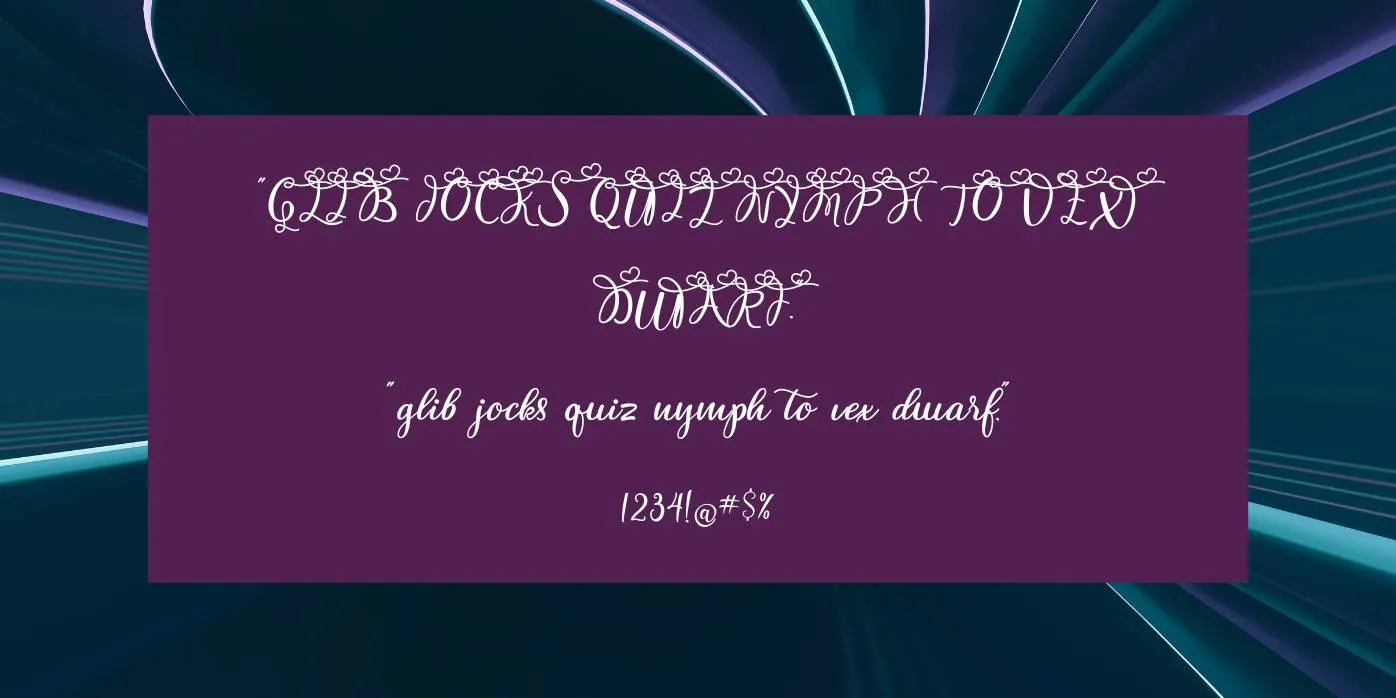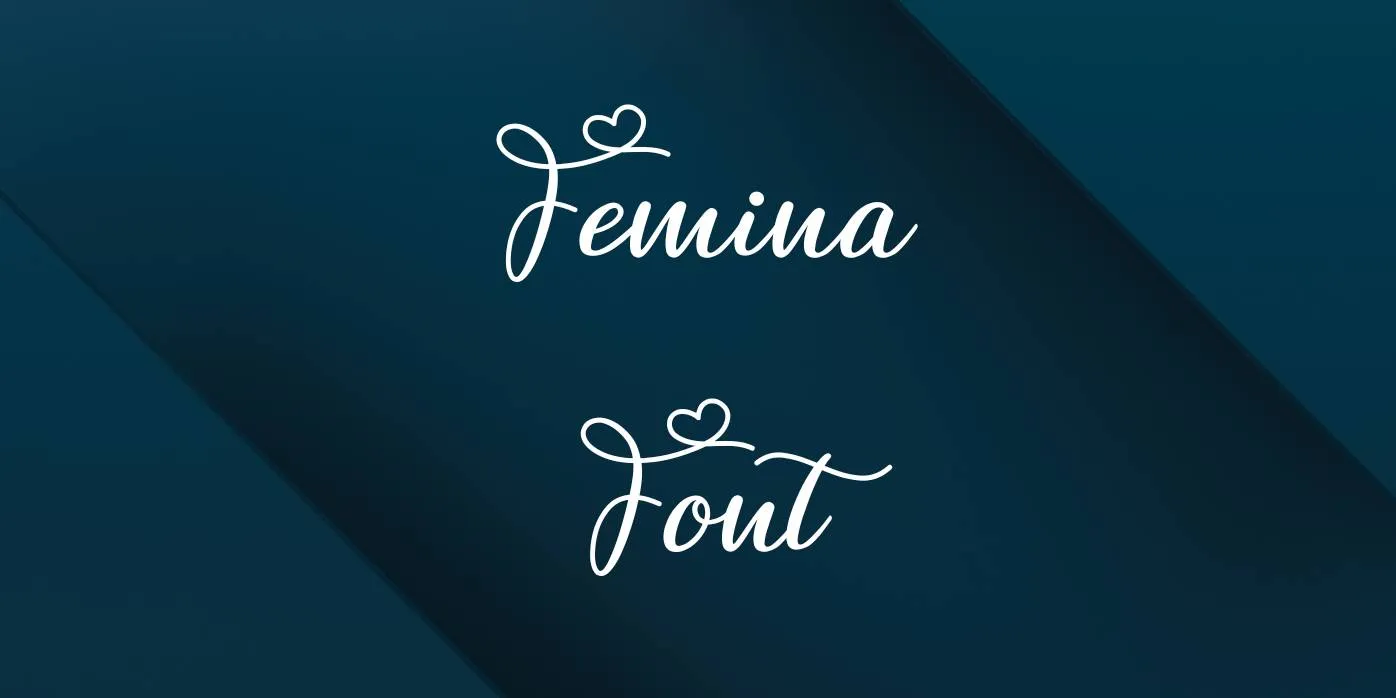
Femina Font
You are going to read about the calligraphy type of font. Femina Font is a calligraphy type of font. HansCo is the designer of this typeface. The characters of this texture are amazing, stylish, pretty, and loving characters.
This typeface has only one regular style. There are 138 amazing and stunning glyphs for this texture. This typeface was created in 2020. You can easily get this texture from our website.